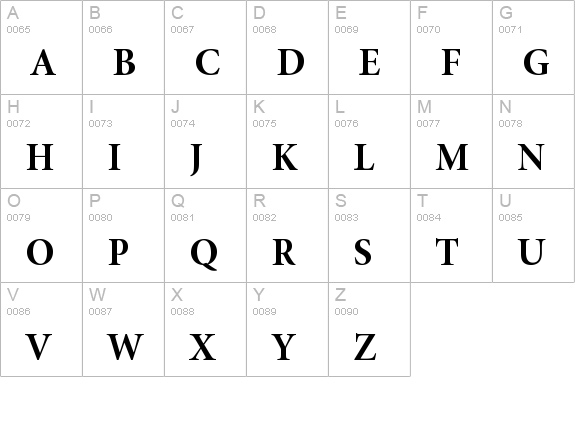
Minion Pro Bold Subhead Font Details
Minion Pro Bold Subhead is a strong, high-contrast variant in the Minion typeface family \xE2\x80\x94 well suited to headlines, attention-grabbing titles, and strong calls-to-action.